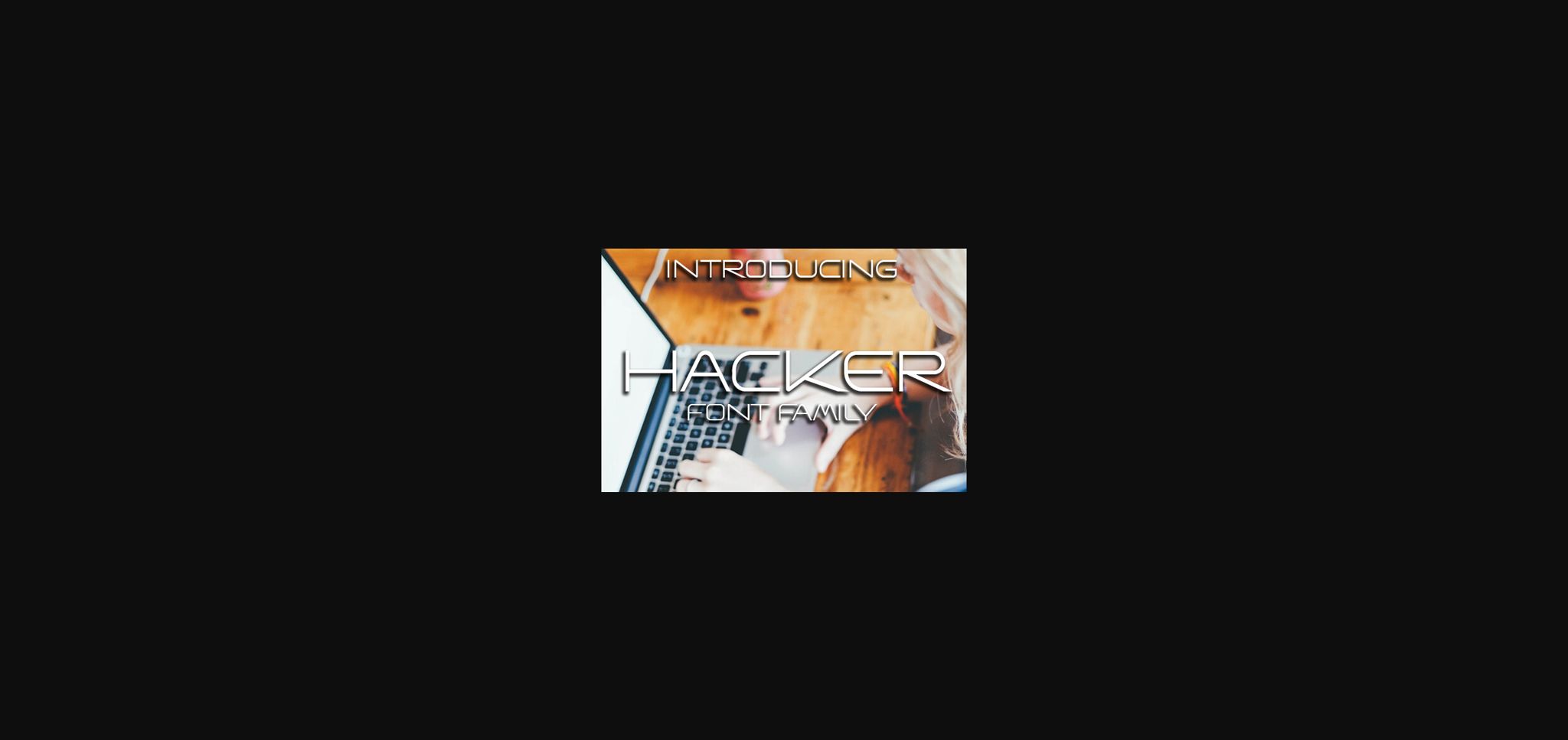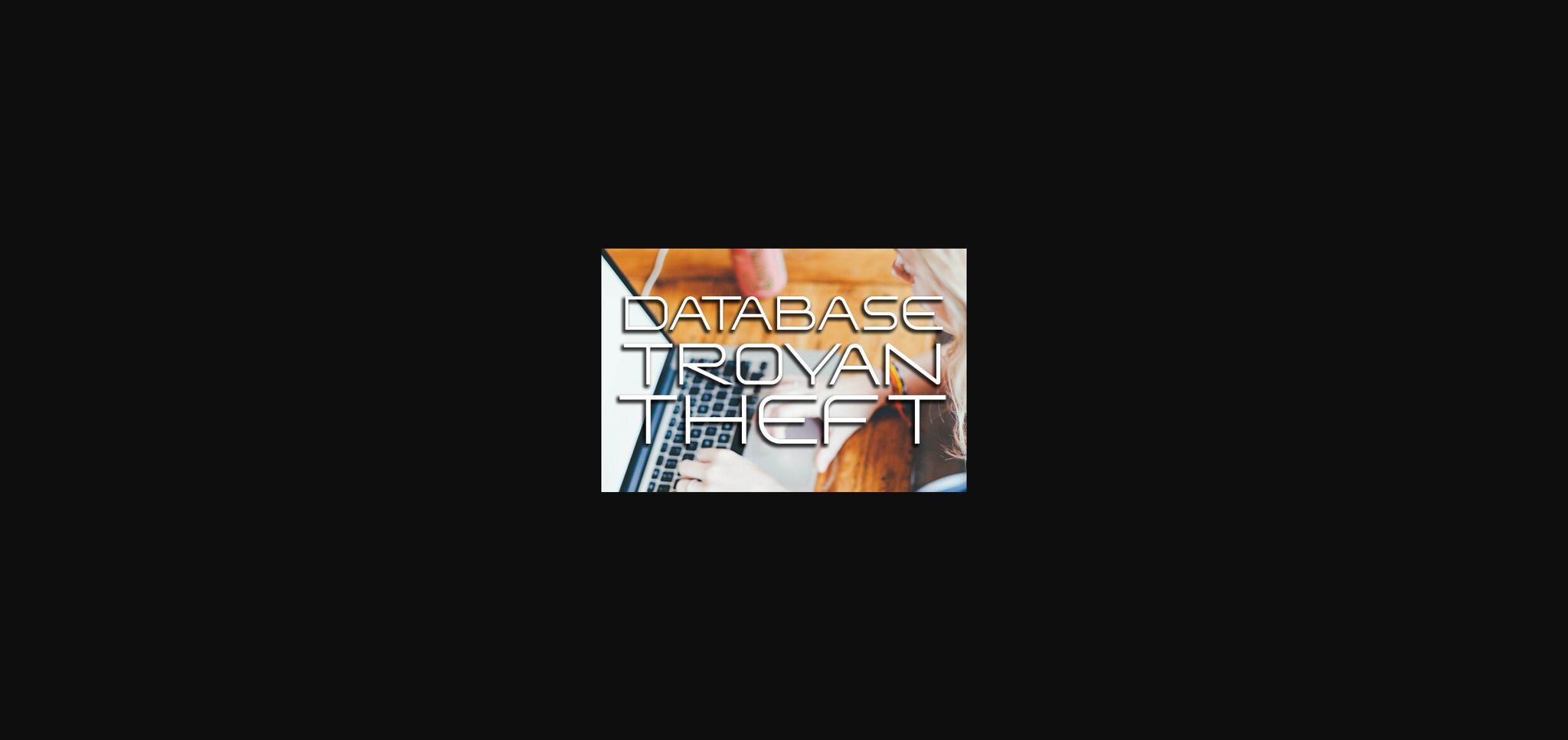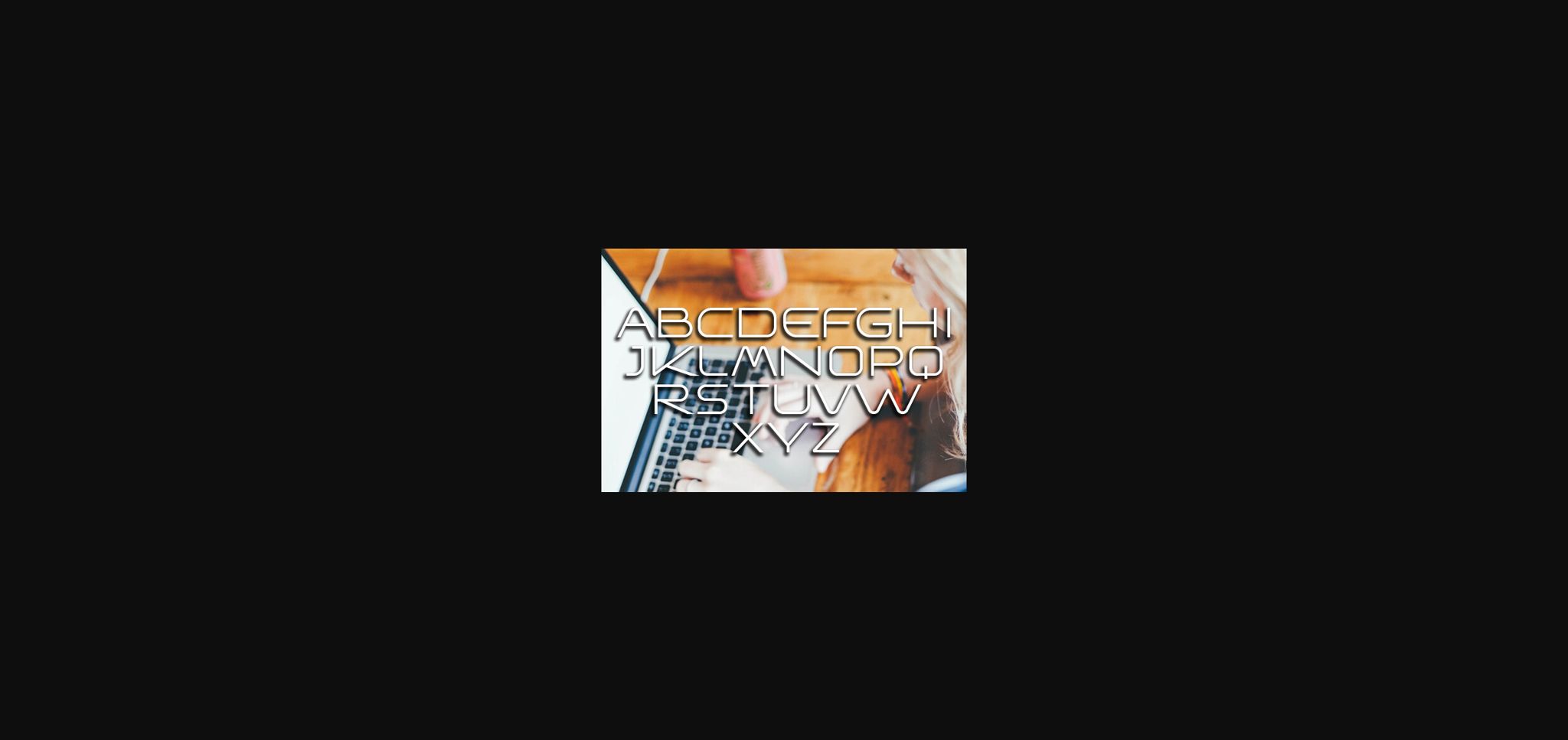
HomeSans Serif FontsHacker Font Sans Serif Fonts Hacker Font FacebookXPinterestWhatsApp 1 of 5 ... Hacker Font Poster 2... Hacker Font Poster 3... Hacker Font Poster 4... Hacker Font Poster 5... About Hacker Font Hacker is a stylish Sci Fi font family that will make Your designs shine. Use this font on posters, brochures and t-shirts. DOWNLOAD NOW People also explored Autumn Shade Font Alifia Font Wallet Font Sharila Font Valentine Dream Duo Font Stay Ontheway Font Bethany Ellie Font Daisy Song Font Kimberley Font 459 0 TagsHackerHacker Font Previous articleHello January FontNext articleSage Mondial Font LEAVE A REPLY Cancel reply Comment: Please enter your comment! Name:* Please enter your name here Email:* You have entered an incorrect email address! Please enter your email address here Website: Save my name, email, and website in this browser for the next time I comment. Personal Use Free BD AsciiMax Personal Use Free Read more about this font Kitchen Blue Personal Use Free Read more about this font Thruster Personal Use Free Read more about this font BD Medled Personal Use Free Read more about this font BLOG Top 10 Handwritten Fonts That Elevate Your Designs Top 10 Handwritten Fonts That Will Elevate Your Designs Handwritten fonts bring a warm, personal touch to every creative project. Whether you're designing logos, invitations,... The 10 Best Handwriting Fonts to Add Personality to Your Designs Free vs Paid Fonts: Why Investing in Premium Fonts Is Worth It Using Fonts in Digital Marketing: Tips to Strengthen Your Brand Identity